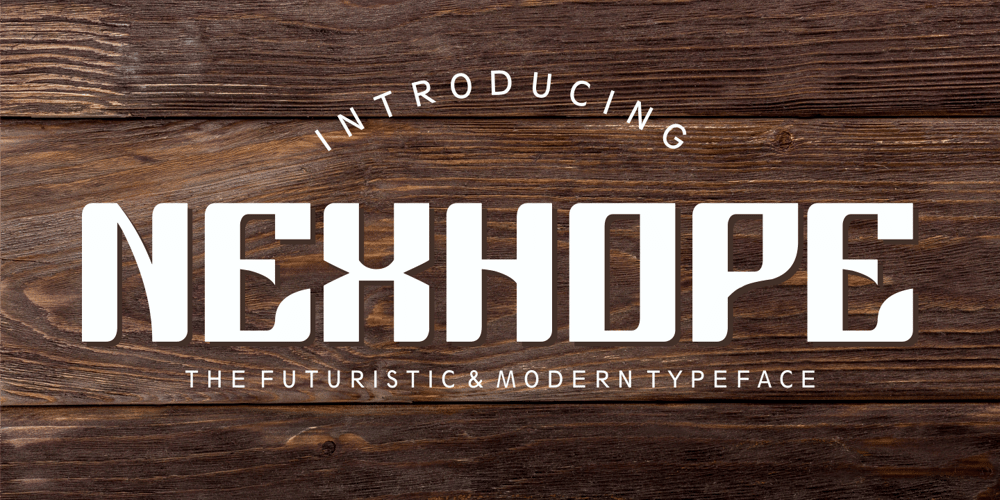
Nexhope
Nexhope font
Nexhope Font Family was designed by Muhammad Nazarudin and published by Niznaztype. Nexhope contains 1 styles and family package options. Nexhope is a modern typeface for postmodern and futuristic design. Nexhope inspired from level of needs a posmodern font is high. Nexhope is best for a variety of graphic projects, such as brochures, flyers, posters, lettering, t-shirts, editorial, postmodern design, headline, web design, minimalist design, branding, advertising and more.